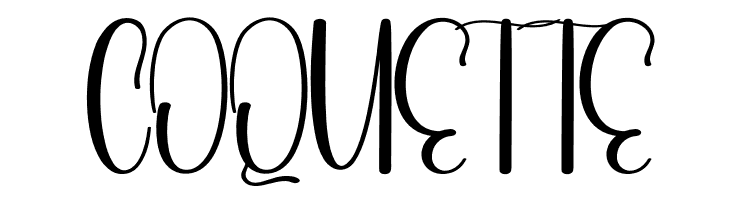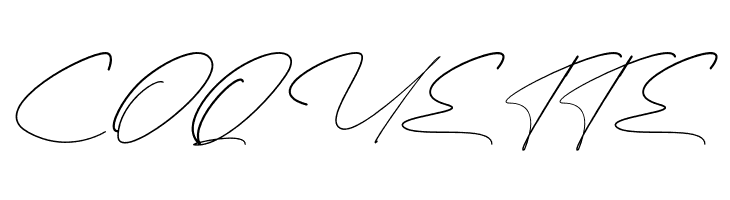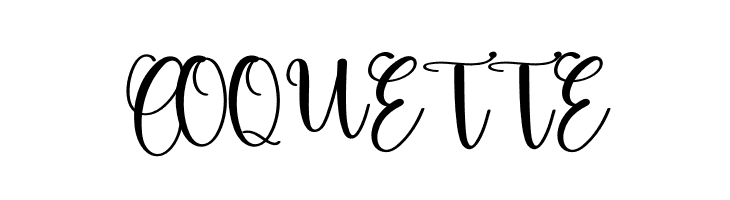
( Fonts by Andi Moz )
Tall, elegant script with dramatic contrast and flourishes.
( Fonts by FinTypeStudio )
A refined, cursive handwritten script with thin, flowing lines.
( Fonts by FreshtypeINK )
A whimsical, hand-lettered script with decorative swashes.